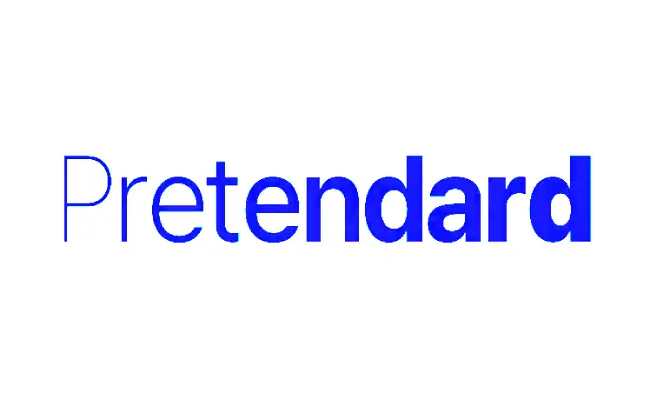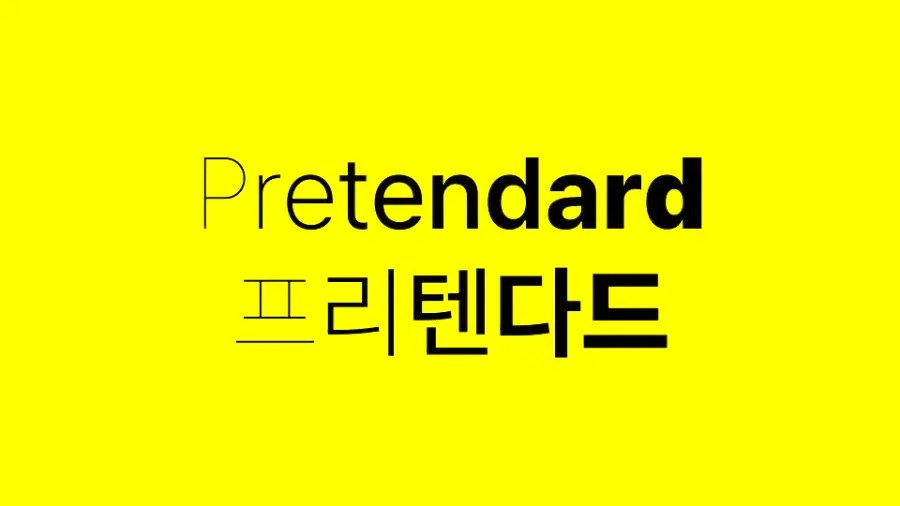
Pretendard Font is a free, open-source Neo-grotesque sans-serif font designed by Kil Hyung-jin for seamless cross-platform UI typography. It merges the best of Inter (Latin), Source Han Sans (Korean), and M PLUS 1p (Japanese) into a single, cohesive typeface that renders consistently across Windows, macOS, Android, and iOS.
Available in 9 weights with variable font support, Pretendard eliminates the need for manual spacing adjustments, especially crucial for Korean text, while offering dynamic subsetting that loads only the characters you need, making it blazingly fast for web use.
Ideal for UI design, websites, mobile apps, and branding where consistent multilingual support (Korean, Latin, Japanese) is needed across different operating systems.
The Roboto Slab pairs best with the Pretendard font. Its slab-serif design creates a clean, professional contrast that complements Pretendard’s modern sans-serif structure.
Pretendard is the free, all-in-one typography solution for modern cross-platform design. It masterfully combines Inter, Source Han Sans, and M PLUS 1p into a single, cohesive font that renders Korean, Latin, and Japanese text flawlessly no manual spacing fixes needed. With 9 weights, variable font support, and dynamic subsetting for optimal web performance, it delivers professional-grade UI typography across all devices. Licensed under SIL OFL for unrestricted commercial use, Pretendard is simply the smartest, most practical choice for any multilingual project.